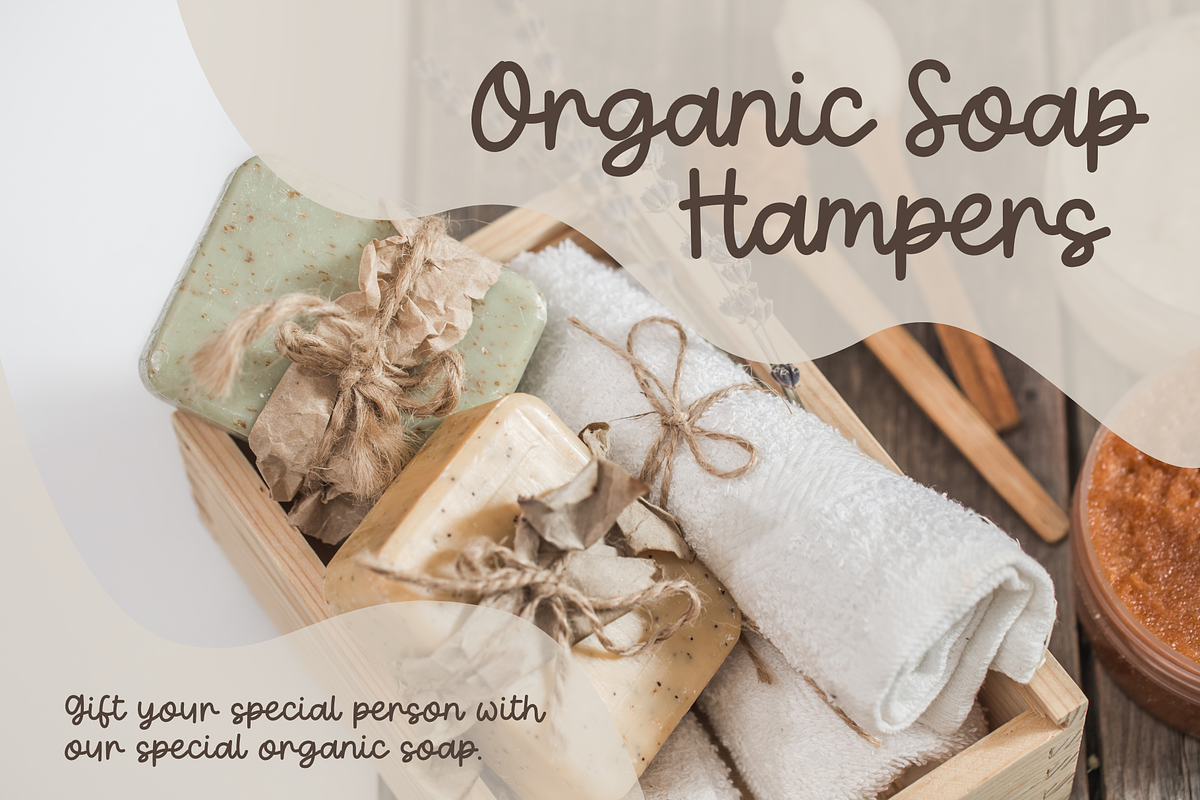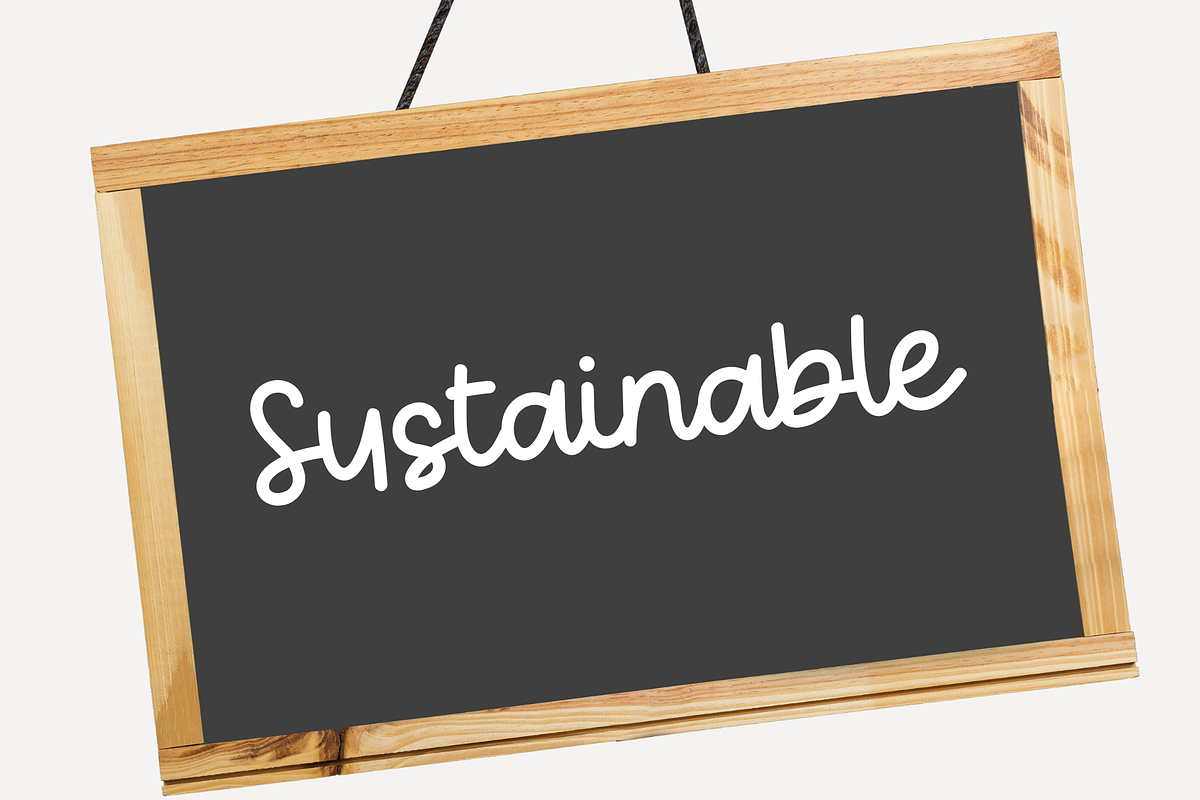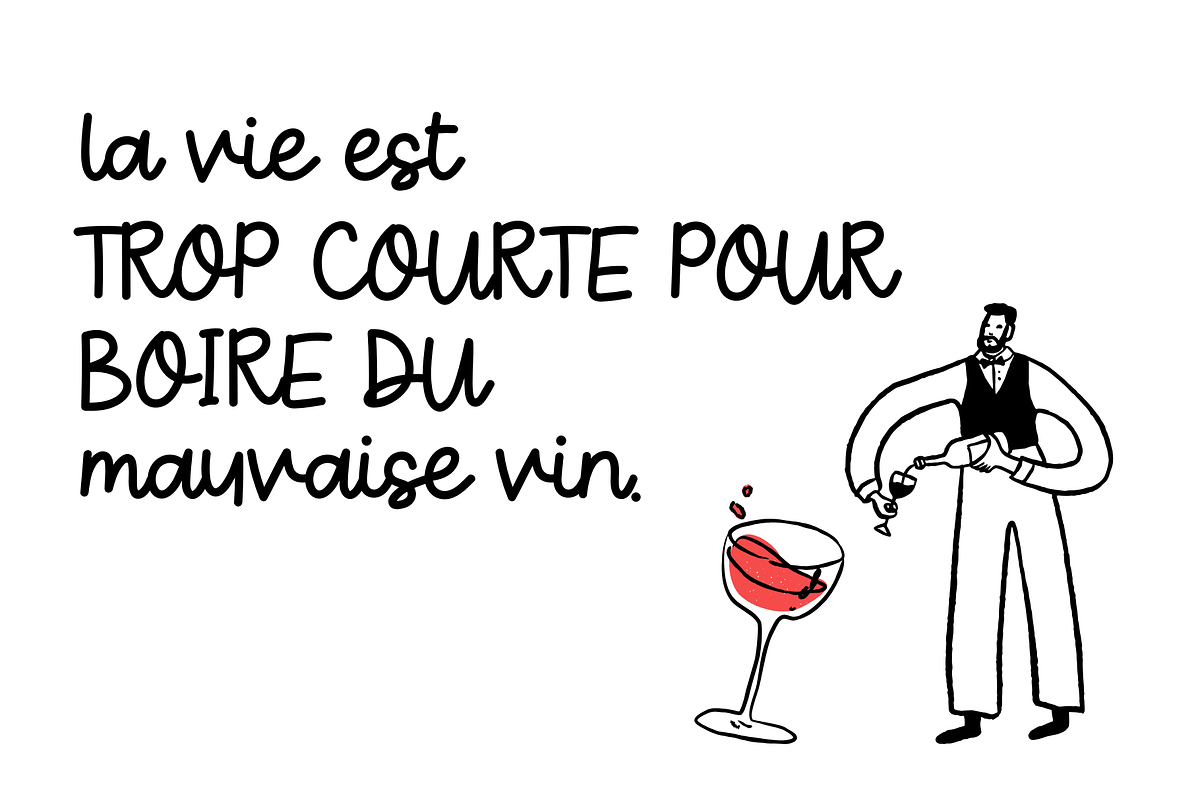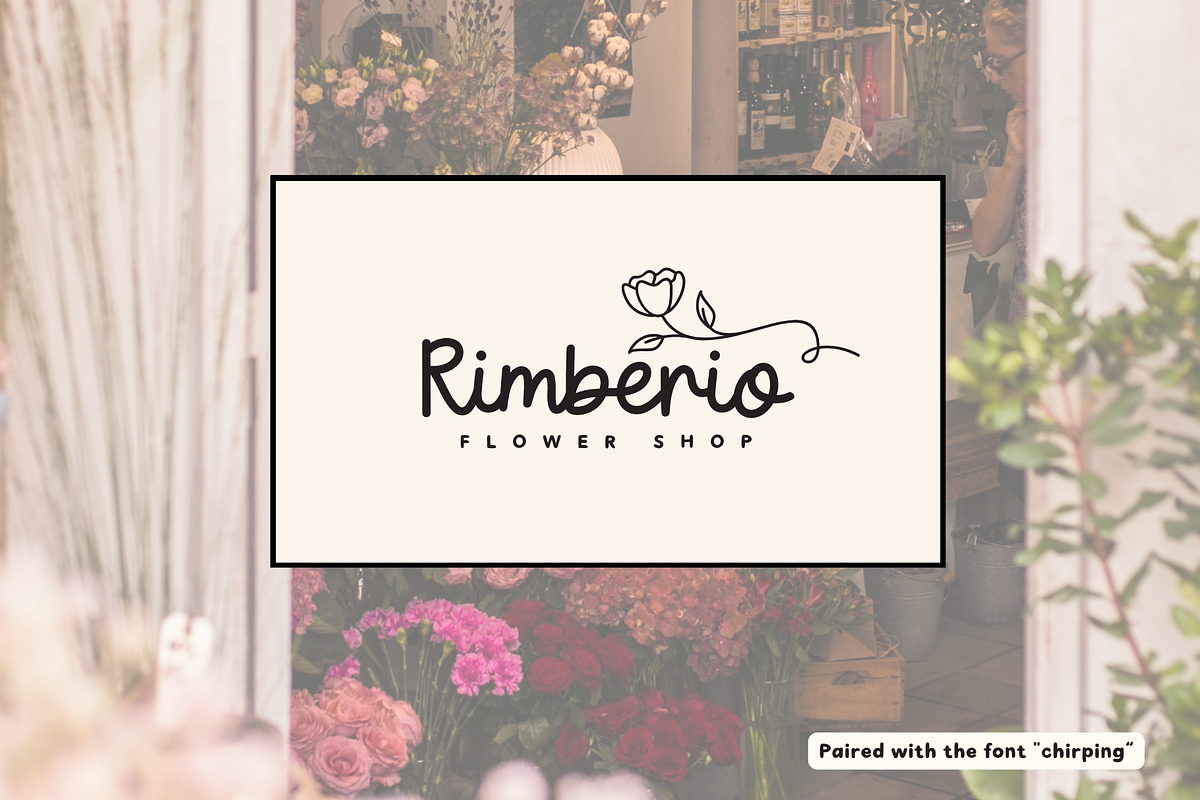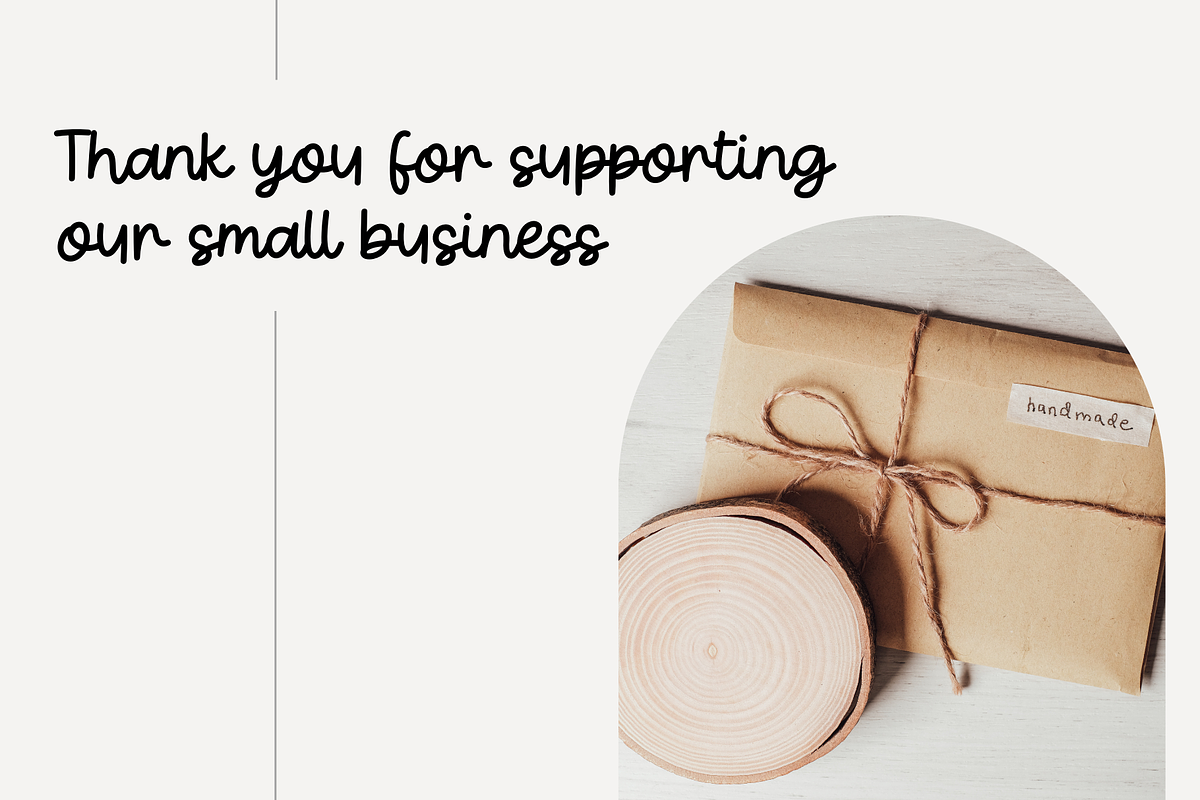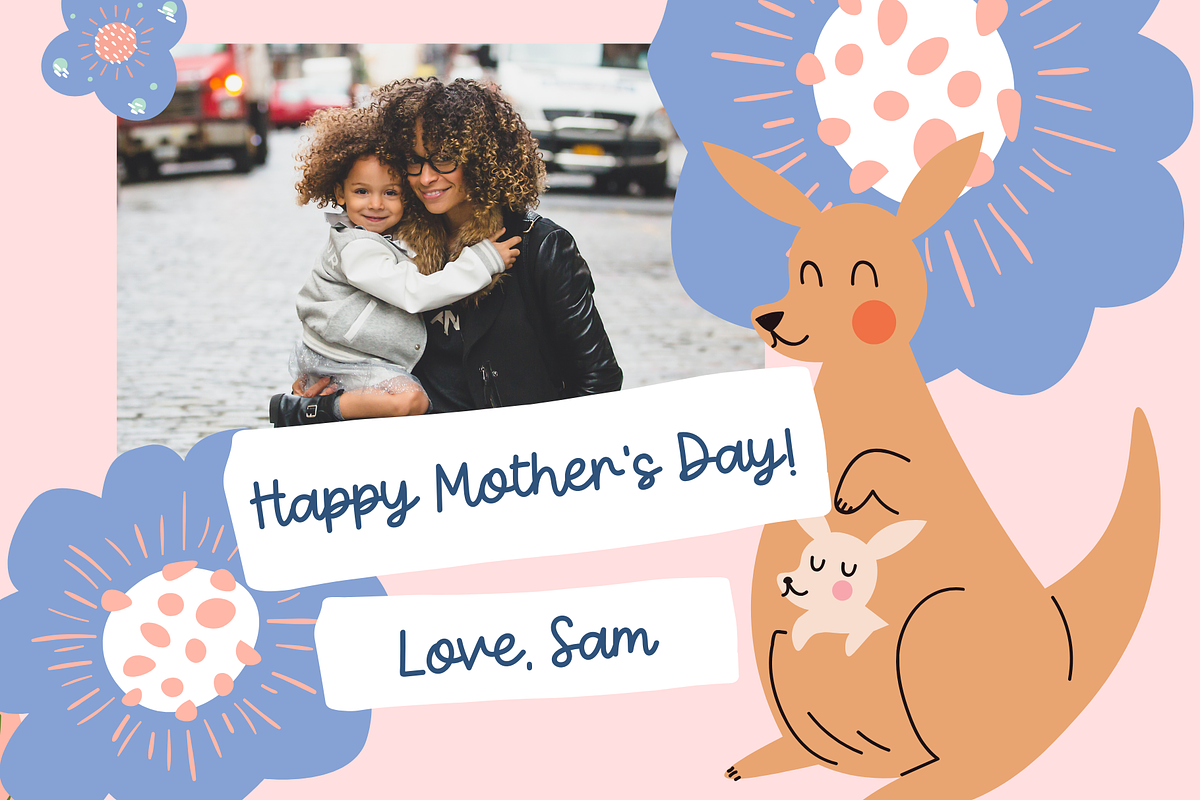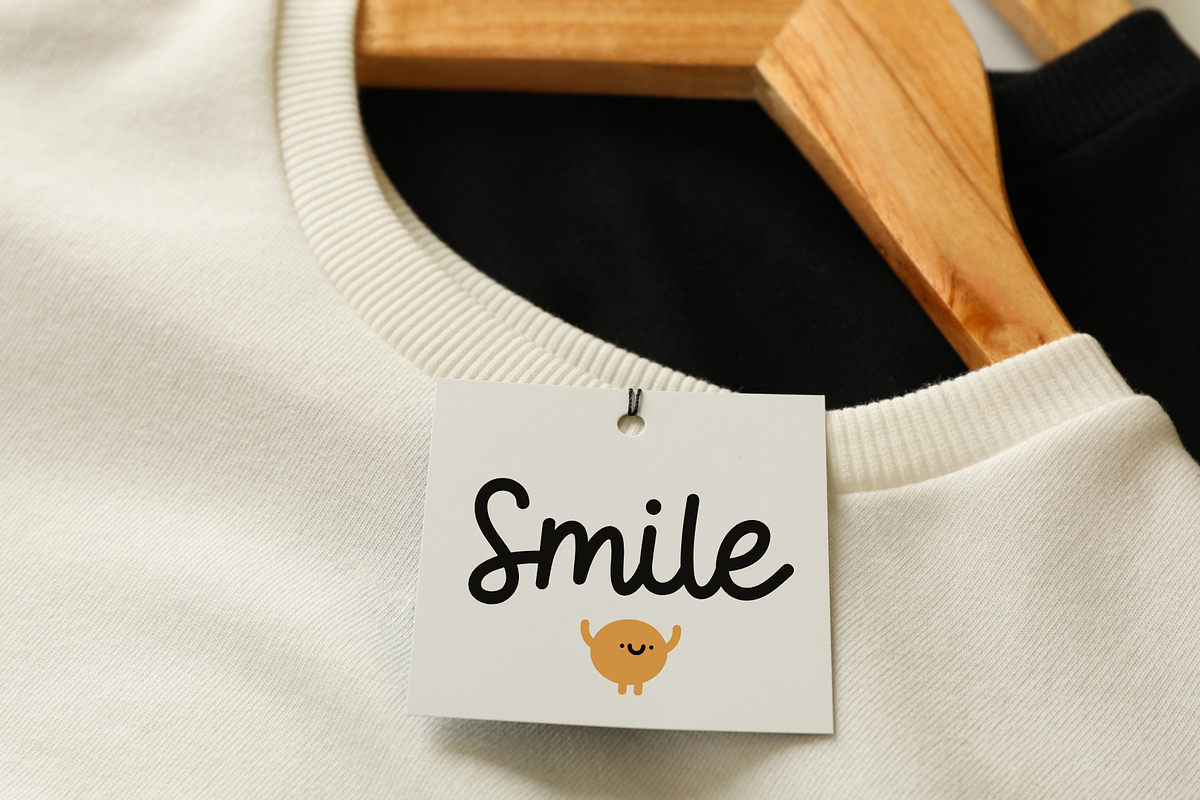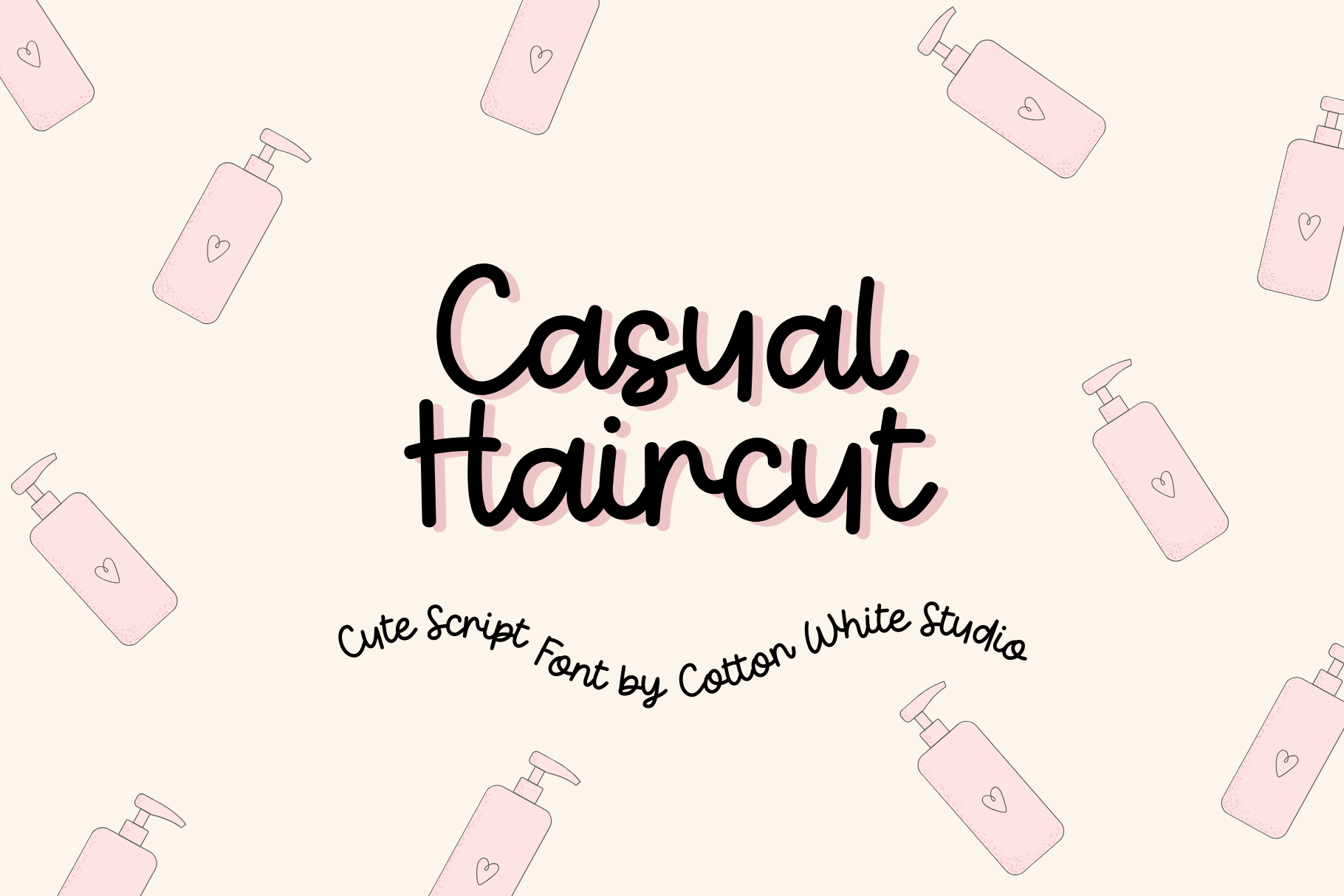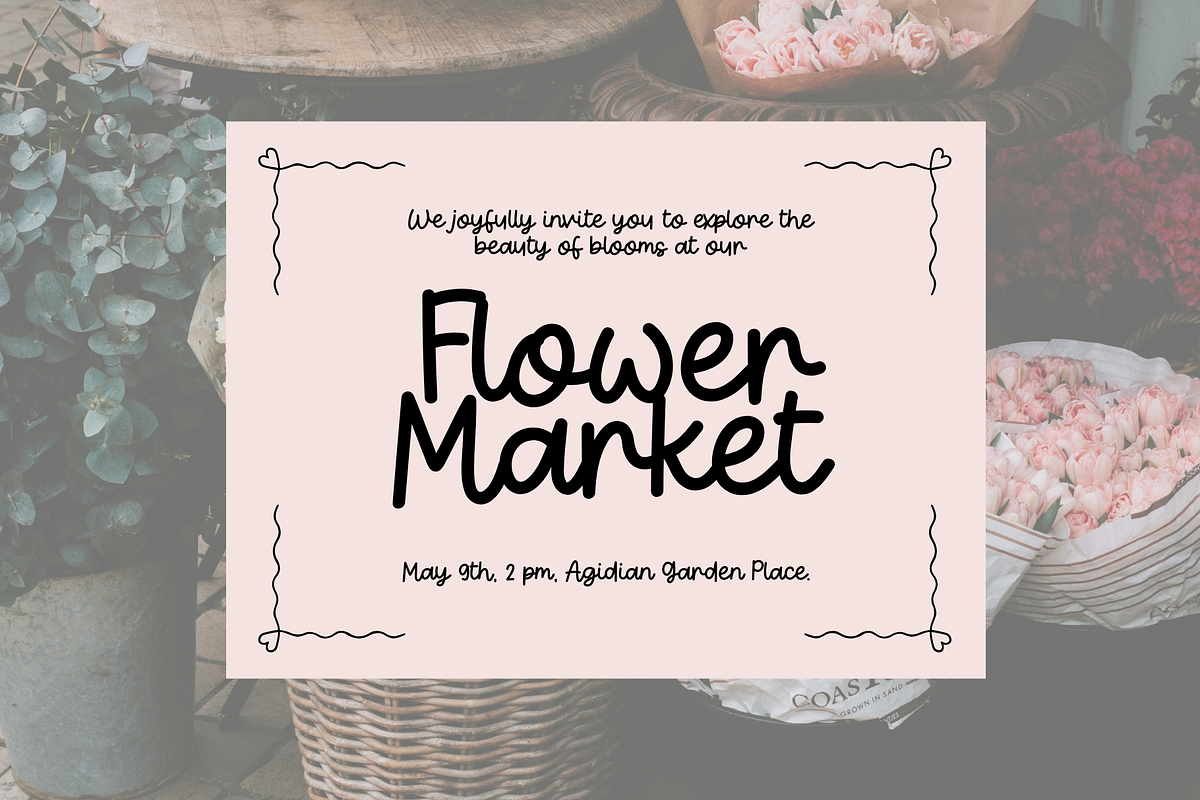
Casual Haircut Script Font
Cute handwritten font, perfect for creative projects that require a handwritten look. Use it for your digital planner, stickers, quotes, greeting cards, tea towels, apparel, pillows, mugs, toys, posters, baby clothing, picture books, and so much more.